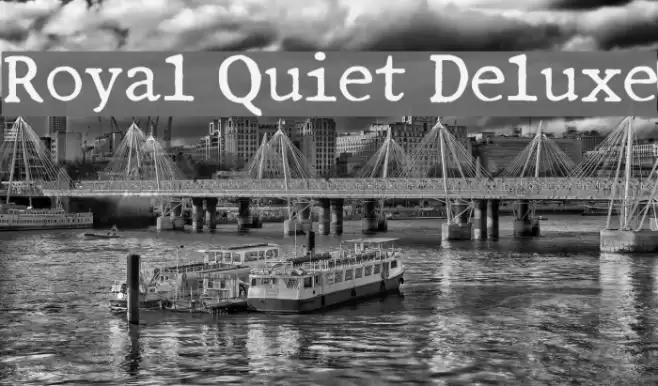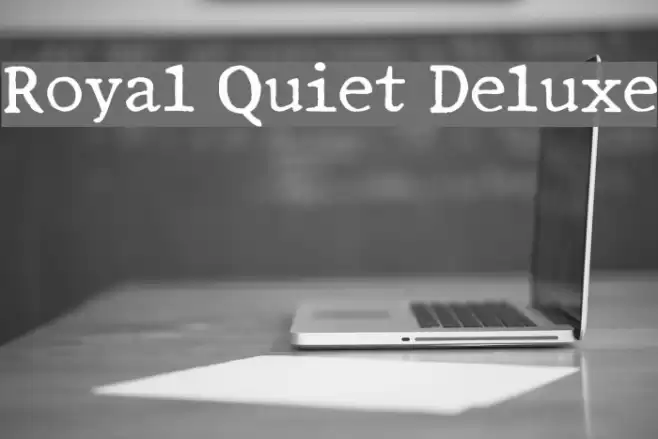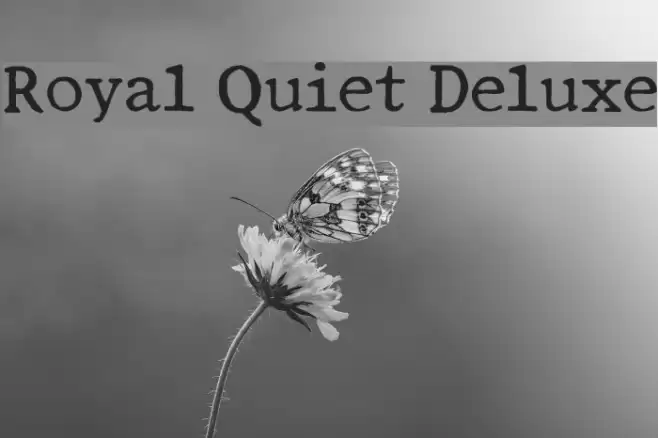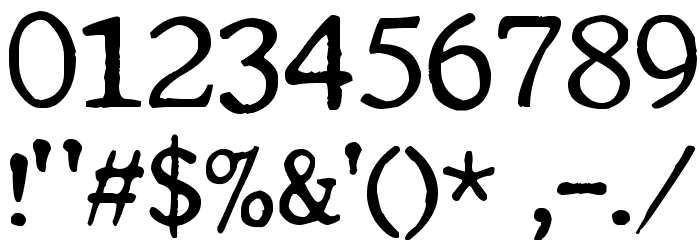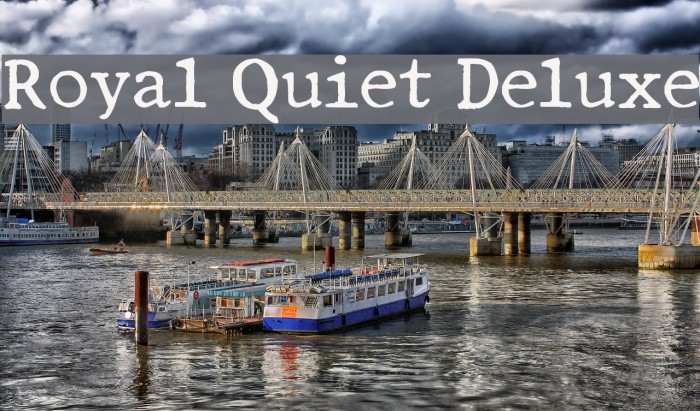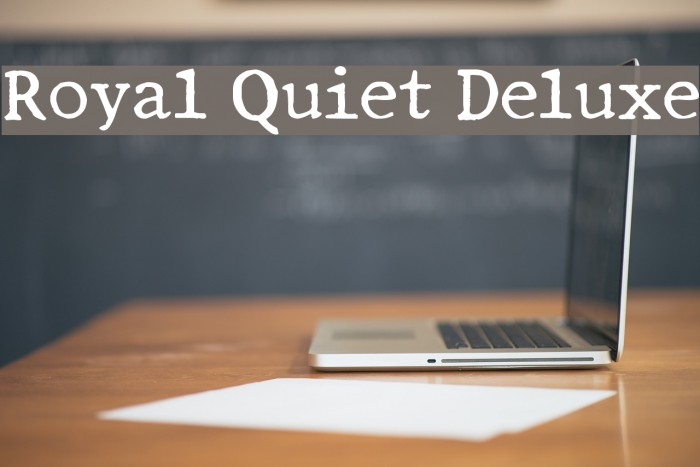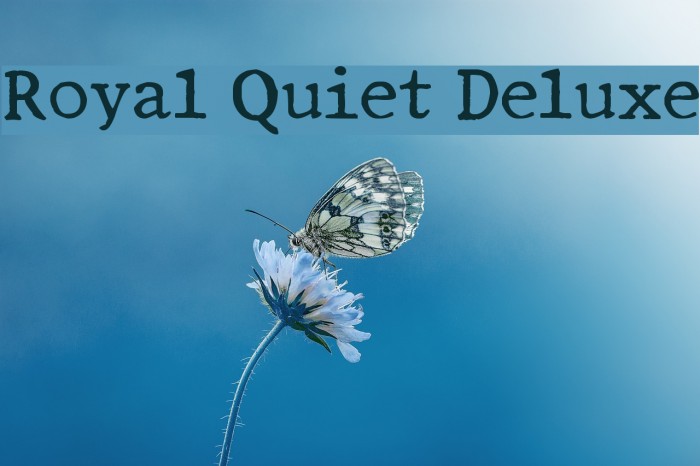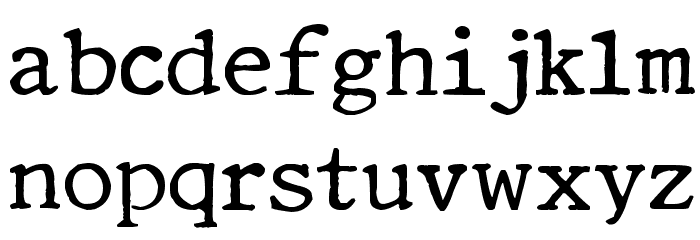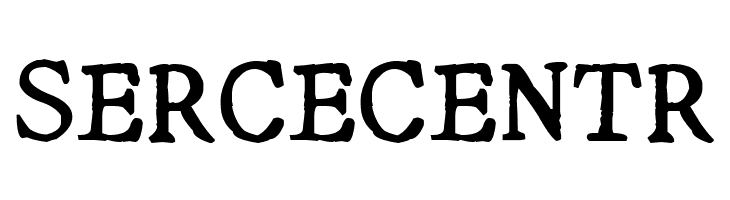
Royal Quiet Deluxe Font
Royal Quiet Deluxe Description
This font features a classic typewriter style with a slightly distressed and uneven texture, giving it a vintage and authentic feel. The characters are bold and have a strong presence, with a noticeable variation in stroke width that adds to its charm. The uppercase letters are tall and commanding, while the lowercase letters maintain a consistent style with slight irregularities that enhance its retro appeal. The numerals are clear and legible, matching the overall aesthetic. Special characters are well-defined, maintaining the font's distinctive look.
A vintage typewriter-style font with a bold, distressed appearance from Uncategorized fonts.
- Proposed Projects: Ideal for projects requiring a retro or vintage feel, such as posters, book covers, or branding for artisanal products.
- Overall Style: Vintage